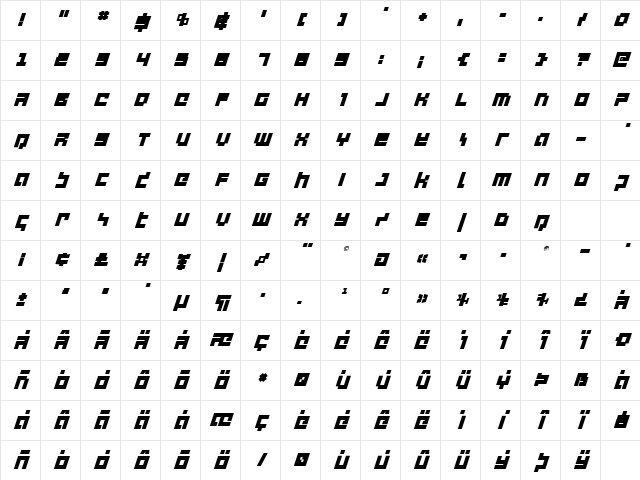
deep data cube super-italic Regular
Design Context for deep data cube super-italic
deep data cube super-italic is a composed and adaptable typeface that performs quietly and consistently across a wide range of design contexts. The slanted form adds forward momentum and visual energy.